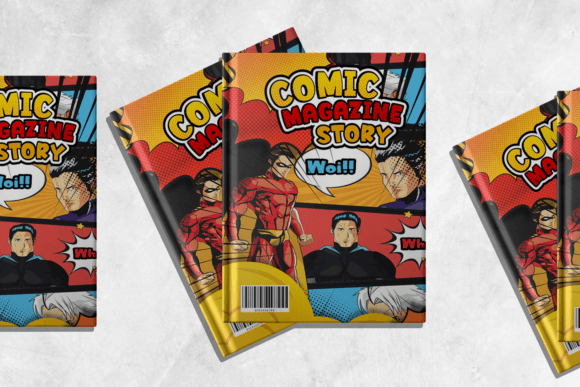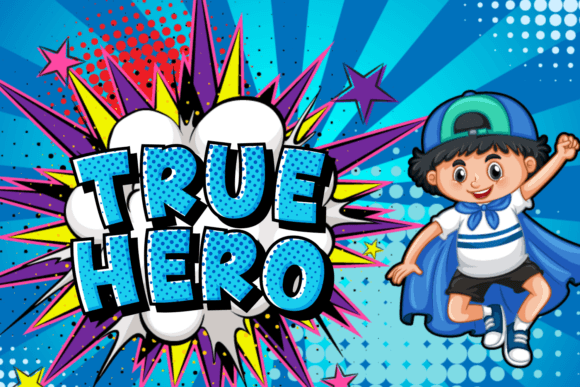
Introduction to Hero Story Font
Have you ever stared at a blank canvas, wondering where to begin your next creative project? You know the feeling – the thrill of possibility, the uncertainty of execution. But what if I told you there’s a secret ingredient that can elevate your designs from ordinary to extraordinary? Enter the Hero Story Font, a game-changing display font that’s about to take your creative endeavors to new heights.
With its thick, chubby strokes and playful personality, the Hero Story Font is the perfect design resource for anyone looking to add a touch of whimsy and high-quality flair to their projects. Whether you’re designing book covers, magazines, or even kids’ t-shirts, this lovely font is sure to make your creations stand out from the crowd.
Key Features of Hero Story Font
- High-quality, professional font design perfect for creative projects, ideal for use in logos, titles, and headings.
- Comes in 8 different font weights, ranging from Thin to Black, providing a range of options for designers to choose from.
- Designed with a modern and elegant aesthetic, suitable for a variety of creative projects, from branding to publishing.
- Supports a wide range of languages, making it a great choice for global branding and design initiatives.
Honest Review: Hero Story Font
I recently had the opportunity to use the Hero Story Font in a creative project and was impressed by its quality. This font is a great design resource for anyone looking to add a touch of elegance to their work.
Here are some of the things that worked well for me:
- ✨ High-quality design: The font has a clear, crisp appearance that looks great on both light and dark backgrounds.
- ⚠️ Limited font styles: While the font is elegant, it only comes in a few different styles, which may not be suitable for projects that require a lot of variation.
- ⚠️ Not suitable for bold text: The font is not ideal for large blocks of bold text, as it can become difficult to read.
Overall, I was impressed with the Hero Story Font and would recommend it to designers looking for a high-quality, elegant font for their creative projects. With a few limitations in mind, this font is a great addition to any design resource library.
Hero Story Font
For the best results, use the Hero Story Font on a transparent background to create a clean and modern look. You can also pair the font with other design elements, such as images or graphics, to create a unique and eye-catching design.
The Hero Story Font is ideal for a variety of creative projects, including business cards, brochures, and websites. You can also use the font for personal projects, such as social media graphics or blog posts.